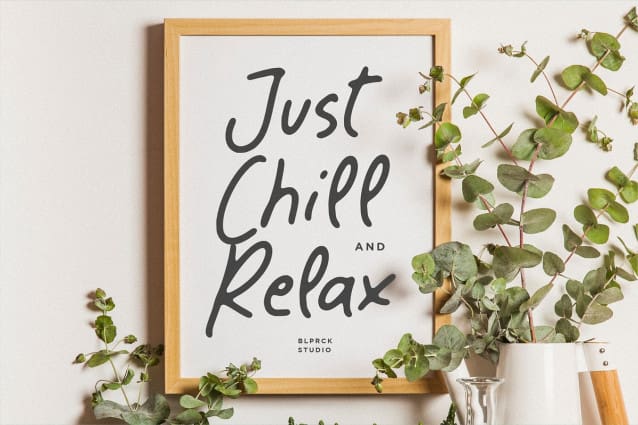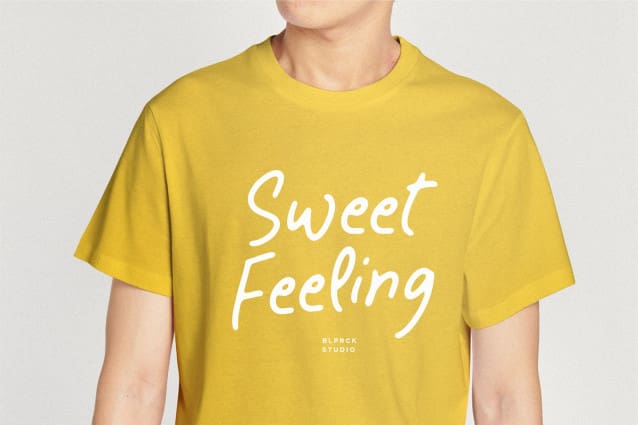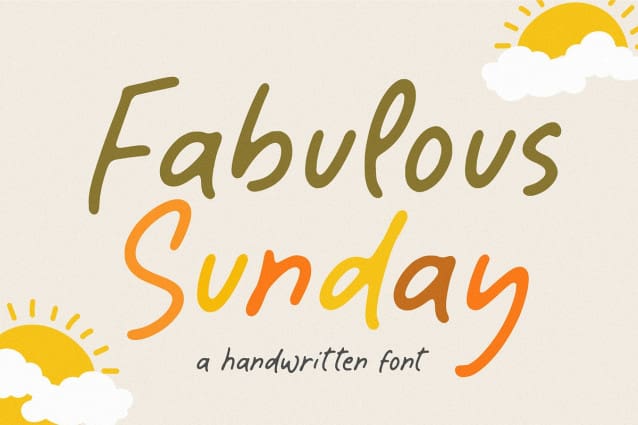
Fabulous Sunday Font
Fabulous Sunday Font is a Handwritten font that’s perfect for adding a personal touch to your design projects! With its natural, organic feel and unique character.
Crafted with care and attention to detail, this font is incredibly versatile and can be used for a range of design projects, including logos, branding, invitations, and more. Its modern, handwritten style gives it a unique character that’s sure to make an impact.